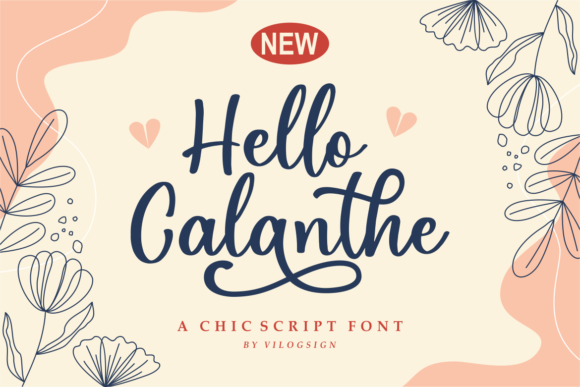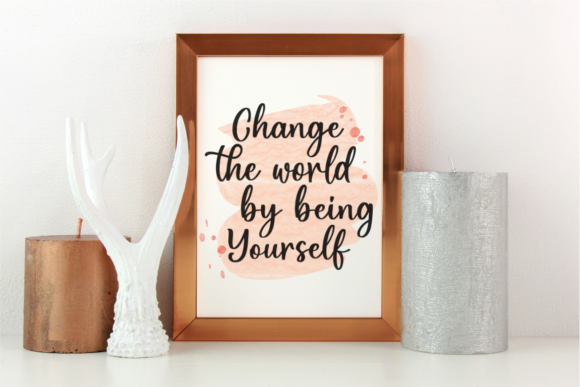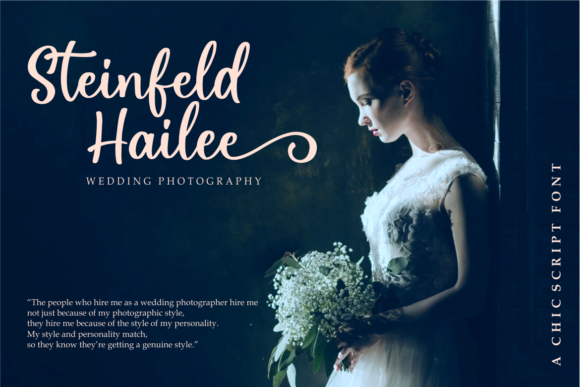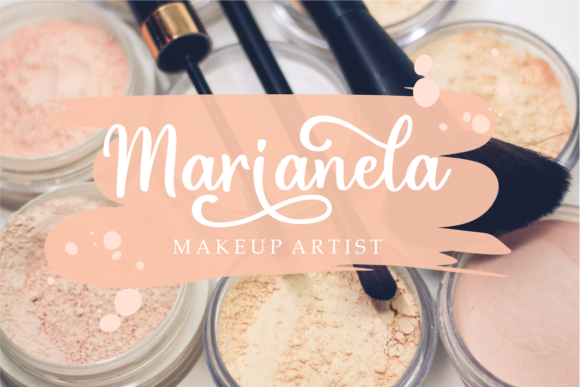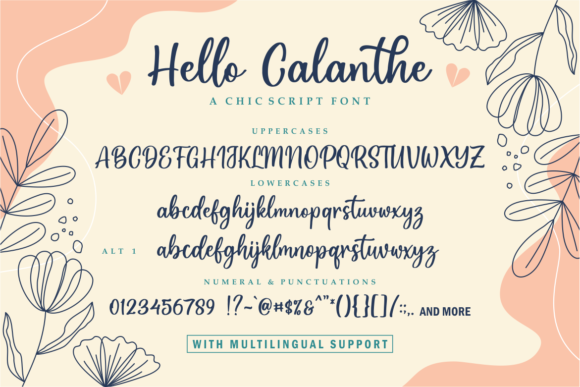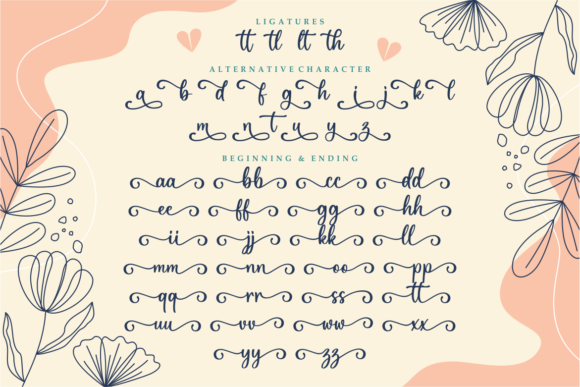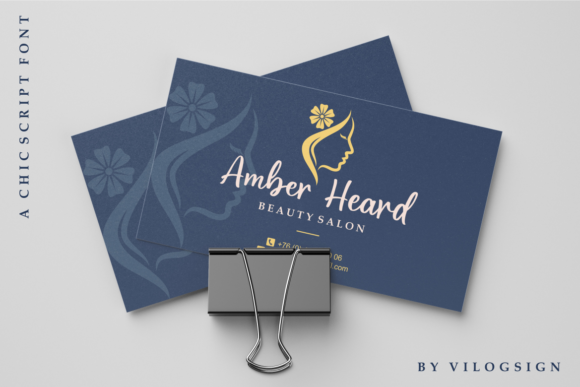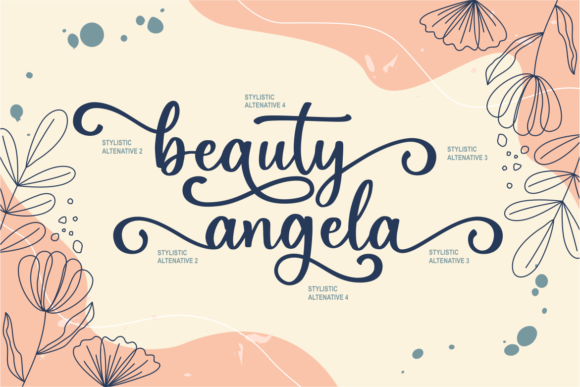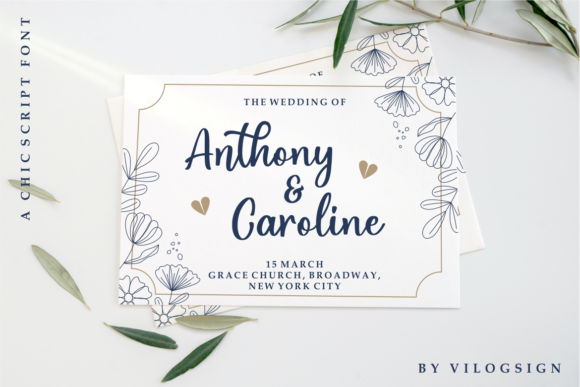
Hello Calanthe Font
Hello Calanthe is a chic light handwritten font with a unique feel and a stunning impact. It will add a luxury spark to any design project that you wish to create!